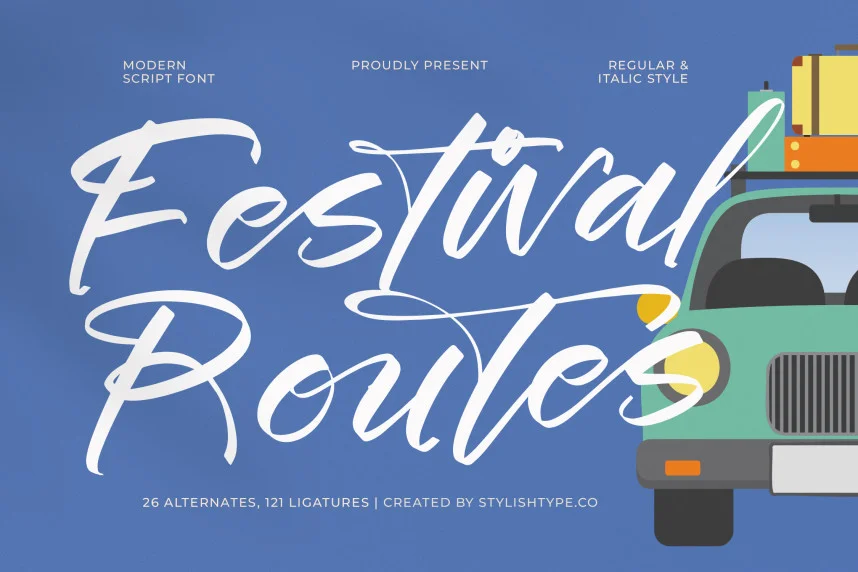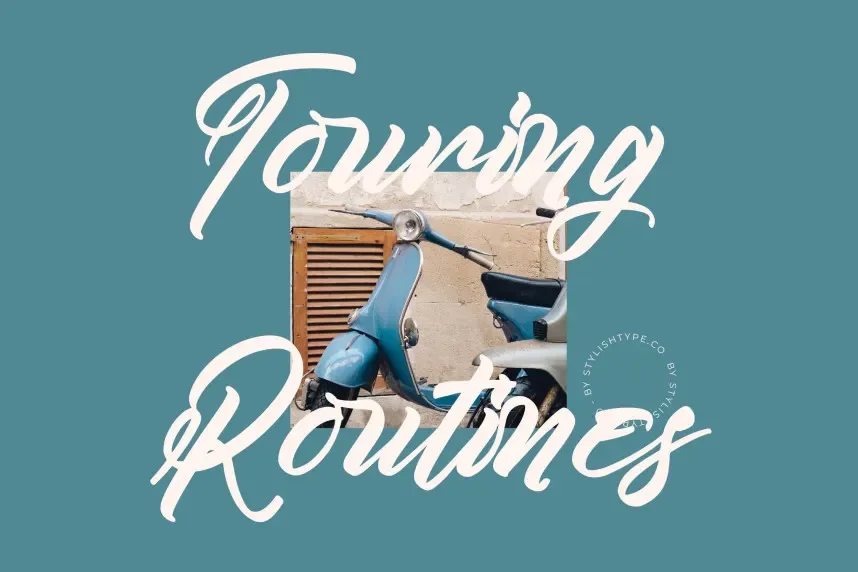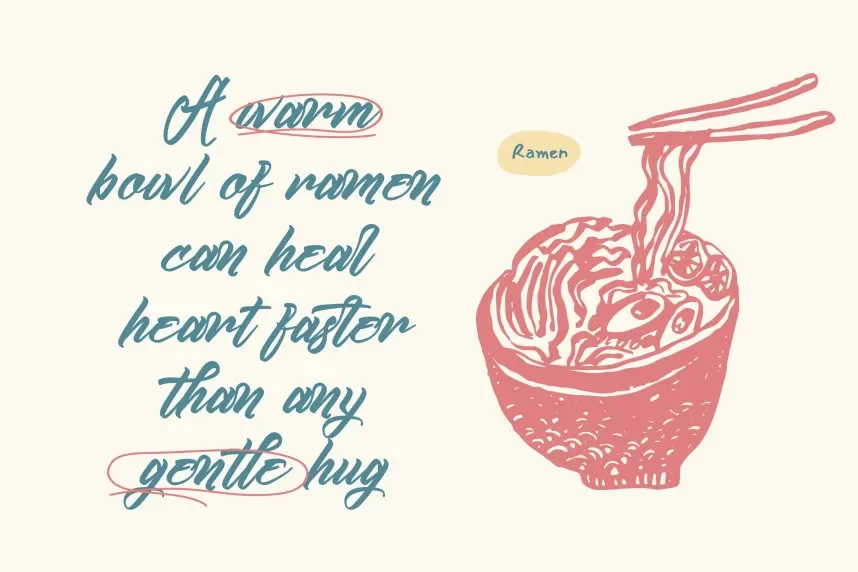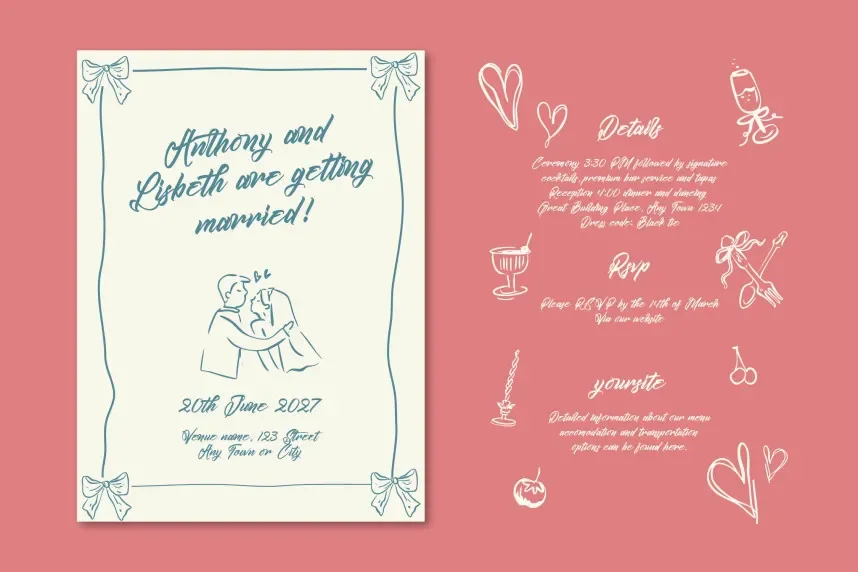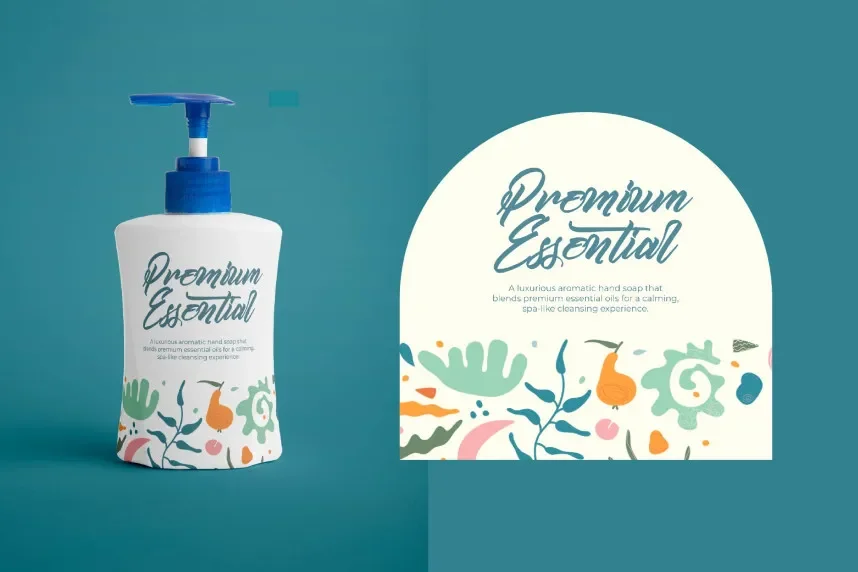
Kamperly Vacation Font is a playful, script-style typeface that captures the relaxed, carefree spirit of vacation. Its smooth curves and casual design make it ideal for creative projects such as invitations, logos, and casual branding.